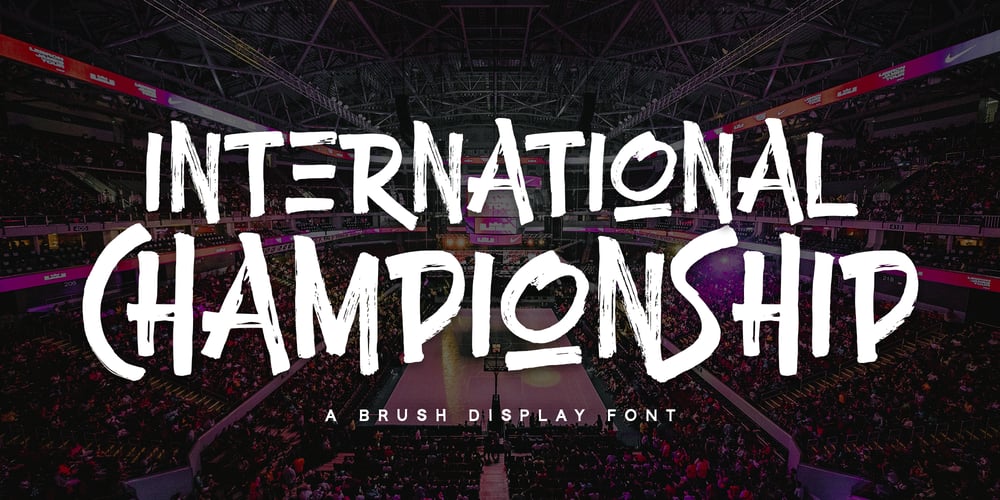
International Championship
International Championship font
International Championship Font Family was designed by Nadia Salsabila and published by Alpaprana. International Championship contains 1 styles and family package options. International Championship is a brush display font with unique and modern feels. It will be perfectly used for Branding, Logo Design, Lettering, Logotype, Clothing, Poster, magazine, packaging, posters, shopping bags, t-shirts, book covers, photography, special events and other design project.